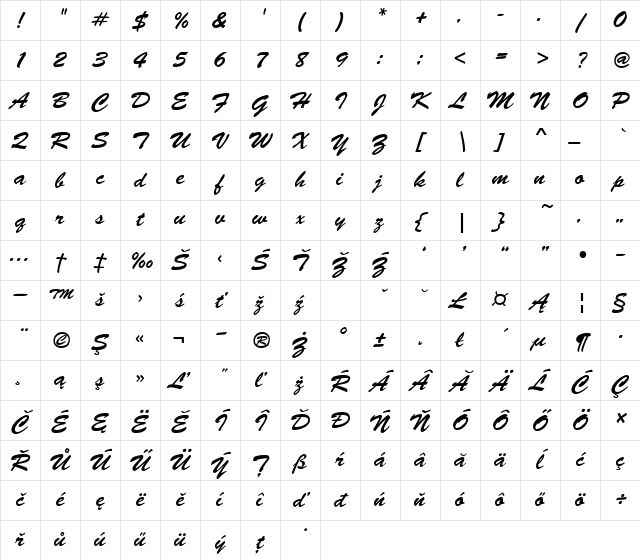
BrushScrDEE Regular
Design Context for BrushScrDEE
BrushScrDEE flows with the natural rhythm of handwritten lettering, making it ideal for designs that call for warmth and personal expression.
Font Pairing: Combine BrushScrDEE with a simple geometric sans for maximum contrast - the tension between flowing curves and clean structure is a classic typographic pairing.
Pro Tip: Use BrushScrDEE for short runs of text - names, titles, or taglines. Extended body copy in script faces tires the eye quickly.